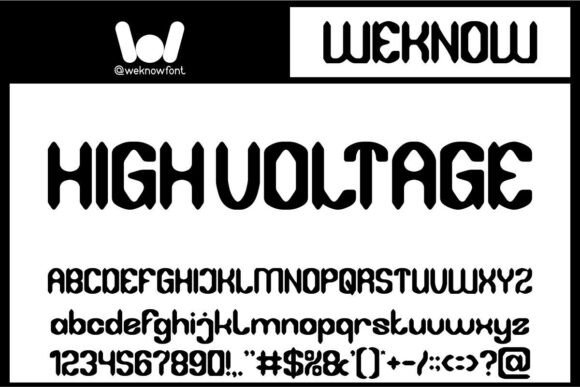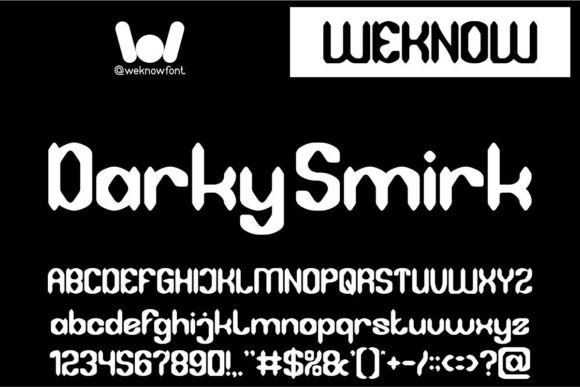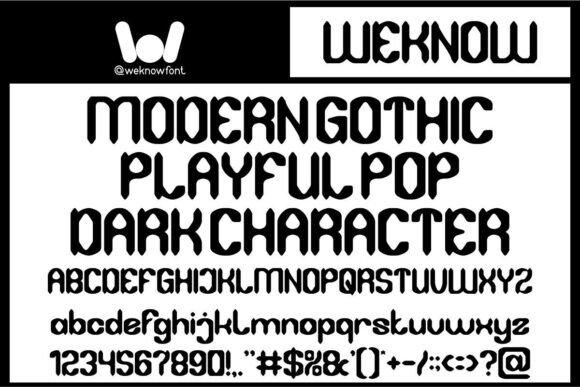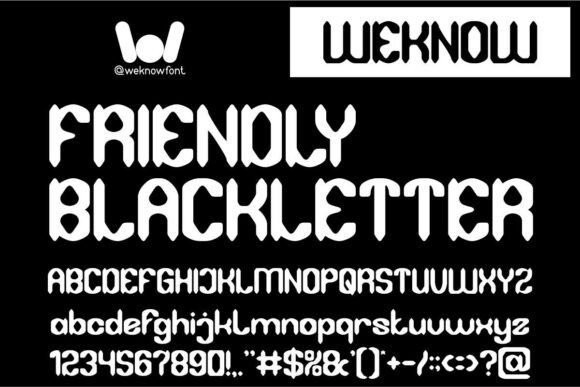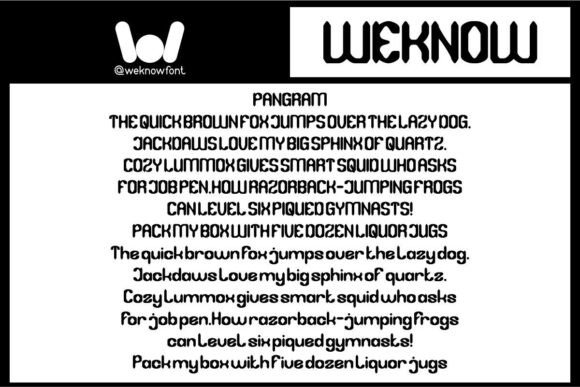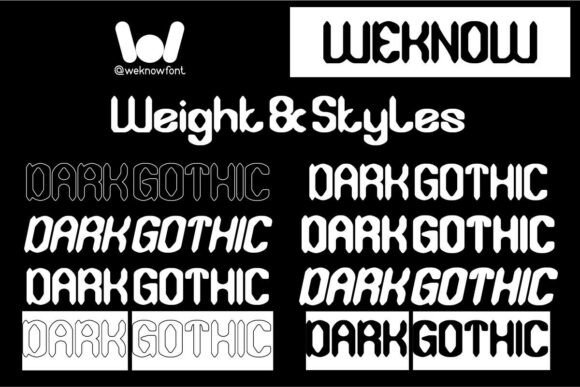
Unveiling Dark Gothic Font: The Ultimate Avant-Garde Blackletter Typeface
Are you ready to elevate your creative projects with a touch of mystery and elegance? Look no further than Dark Gothic, a revolutionary blackletter typeface that combines the best of neo-Gothic pop with a friendly, cartoon Gothicism. This modern Gothic font is designed to bring a visually appealing element to your designs, making it perfect for a wide range of applications.
The Aesthetic of Dark Gothic
Dark Gothic boasts a unique blend of sharp, angular lines and rounded edges, creating a distinctive look that’s both intuitive and versatile. This avant-garde blackletter typeface seamlessly merges the dramatic flair of neo-Gothic pop with the approachability of cartoon Gothicism, making it an ideal choice for designers seeking to add a touch of sophistication to their work.
Crafting Logos and Branding Schemes
When it comes to creating logos and headlining corporate or personal branding schemes, Dark Gothic is the perfect choice. Its bold, eye-catching design ensures that your brand stands out from the crowd, while its friendly, approachable vibe helps to establish a connection with your target audience. Whether you’re launching a new business or rebranding an existing one, Dark Gothic is the ideal font to help you make a lasting impression.
Elevating Apparel Design
Dark Gothic is also perfectly suited for apparel design, adding an indelible imprint to the world of fashion. Whether you’re creating t-shirts, hoodies, or hats, this modern Gothic font brings a touch of edginess and sophistication to your designs. With Dark Gothic, you can create bold, eye-catching apparel that stands out from the crowd and helps to establish your brand’s identity.
Enhancing Publications
From music and movie publications to gaming, magazines, and books, Dark Gothic is the perfect choice for adding a touch of drama and flair to your narratives. This versatile font can be used to create striking headlines, attention-grabbing titles, and captivating taglines that draw readers in and refuse to let go. Whether you’re a publisher, designer, or writer, Dark Gothic helps to elevate the dynamism of your publications and bring your stories to life.
Comics and Cartoon Illustrations
Dark Gothic is also a striking addition to the world of comics and cartoon illustrations. Its bold, expressive design brings a touch of energy and excitement to your artwork, helping to elevate your characters and storylines. With Dark Gothic, you can create visually stunning comics and illustrations that capture the imagination of your audience and leave a lasting impression.
Digital Applications
In today’s digital age, it’s essential to have a font that can adapt to a wide range of applications. Dark Gothic is perfect for enhancing your YouTube and Instagram aesthetics, adding a touch of sophistication and elegance to your social media profiles. This modern Gothic font can also be used to enrich your website’s visual appeal, helping to create a captivating online presence that draws visitors in and refuses to let go.
Why Choose Dark Gothic?
So why choose Dark Gothic over other fonts? Here are just a few reasons why this avant-garde blackletter typeface stands out from the crowd:
- Unique Aesthetic: Dark Gothic boasts a distinctive blend of sharp, angular lines and rounded edges, creating a look that’s both bold and approachable.
- Versatility: This modern Gothic font can be used for a wide range of applications, from logos and branding schemes to apparel design, publications, and digital applications.
- Elegance and Sophistication: Dark Gothic brings a touch of mystery and elegance to your designs, making it perfect for designers seeking to add a touch of sophistication to their work.
In conclusion, Dark Gothic is the ultimate avant-garde blackletter typeface for designers and crafters seeking to elevate their creative projects with a touch of mystery and elegance. Its unique blend of sharp, angular lines and rounded edges creates a distinctive look that’s both intuitive and versatile, making it perfect for a wide range of applications. Whether you’re crafting logos and branding schemes, apparel design, publications, or digital applications, Dark Gothic helps to etch a captivating story that draws audiences in and refuses to let go.